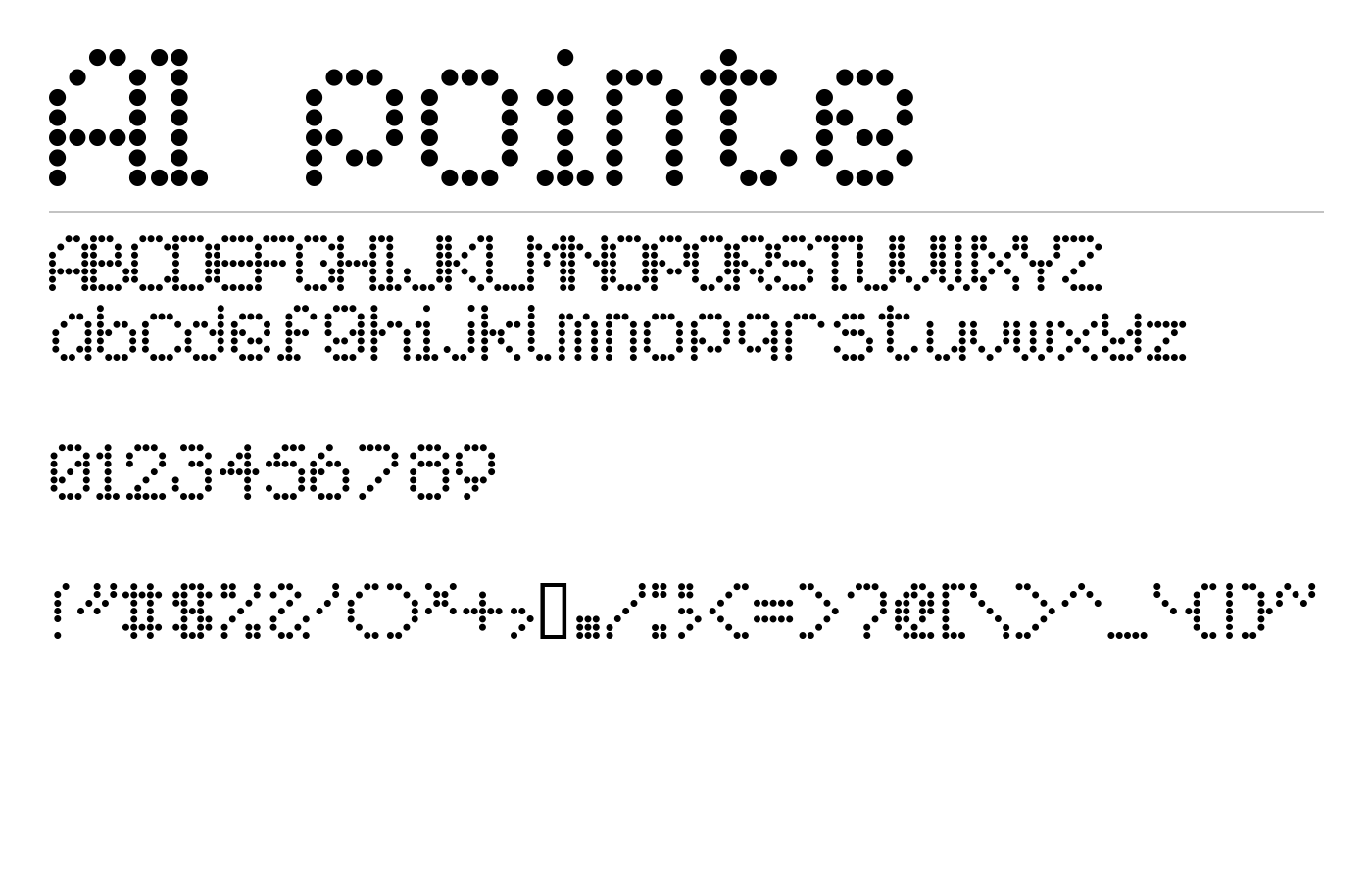
AI pointe is a playful and modern sans serif display font composed entirely of small dots, giving it a distinct digital or pixelated aesthetic. Its light weight and airy letterforms create a sense of openness and simplicity, making it ideal for creative headlines, tech-inspired branding, or futuristic design projects. This font works best in large sizes where its unique dotted structure can be fully appreciated, adding a contemporary and tech-savvy feel.
AI pointe Font